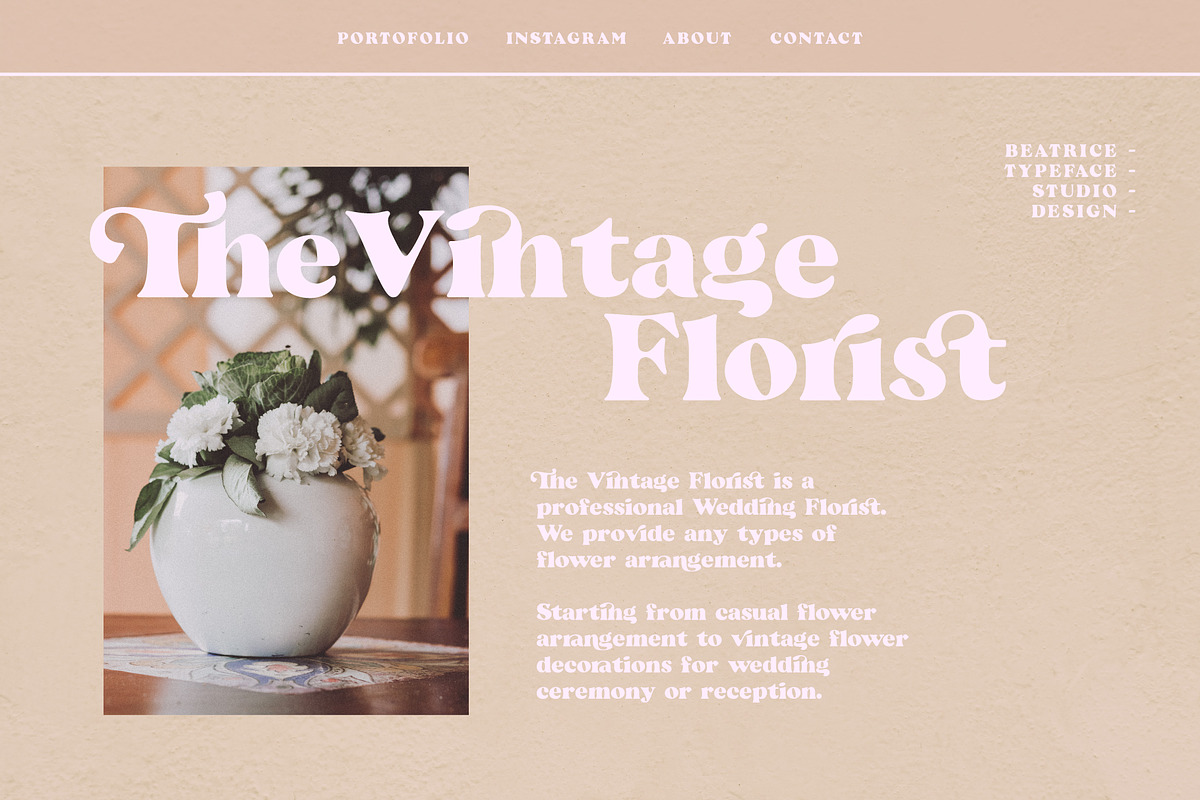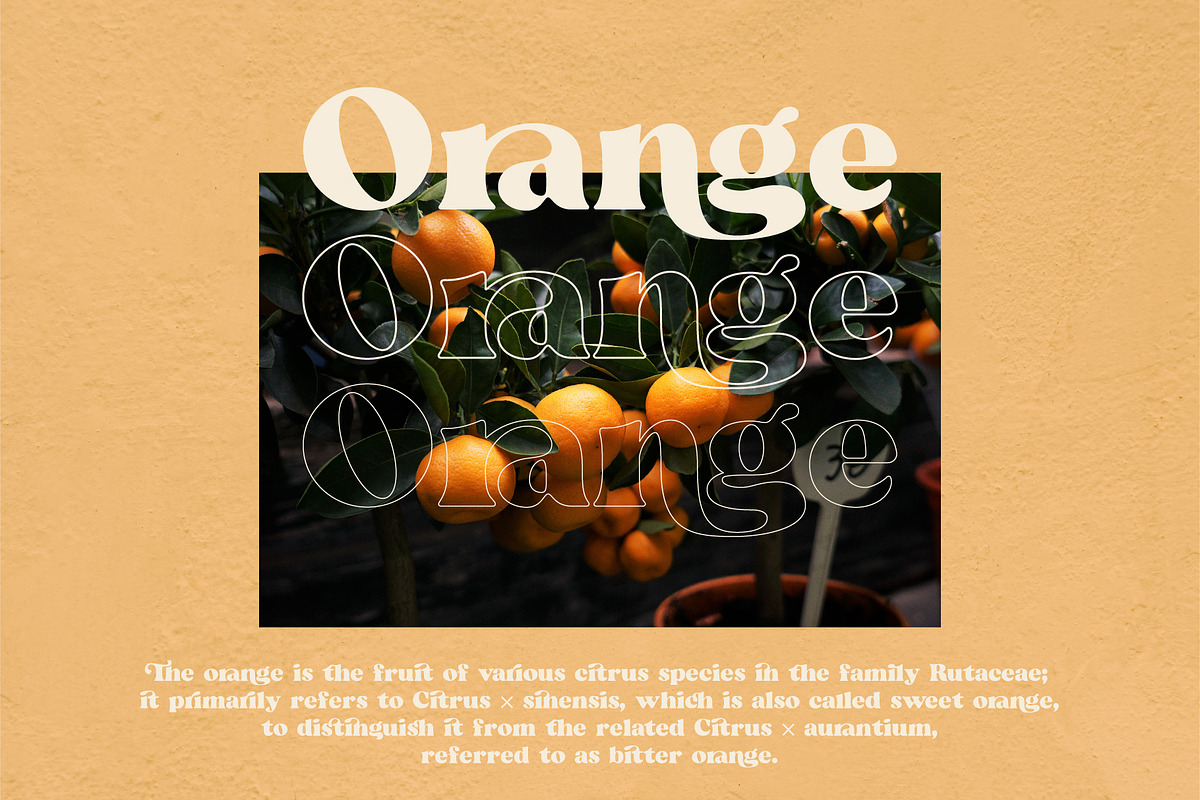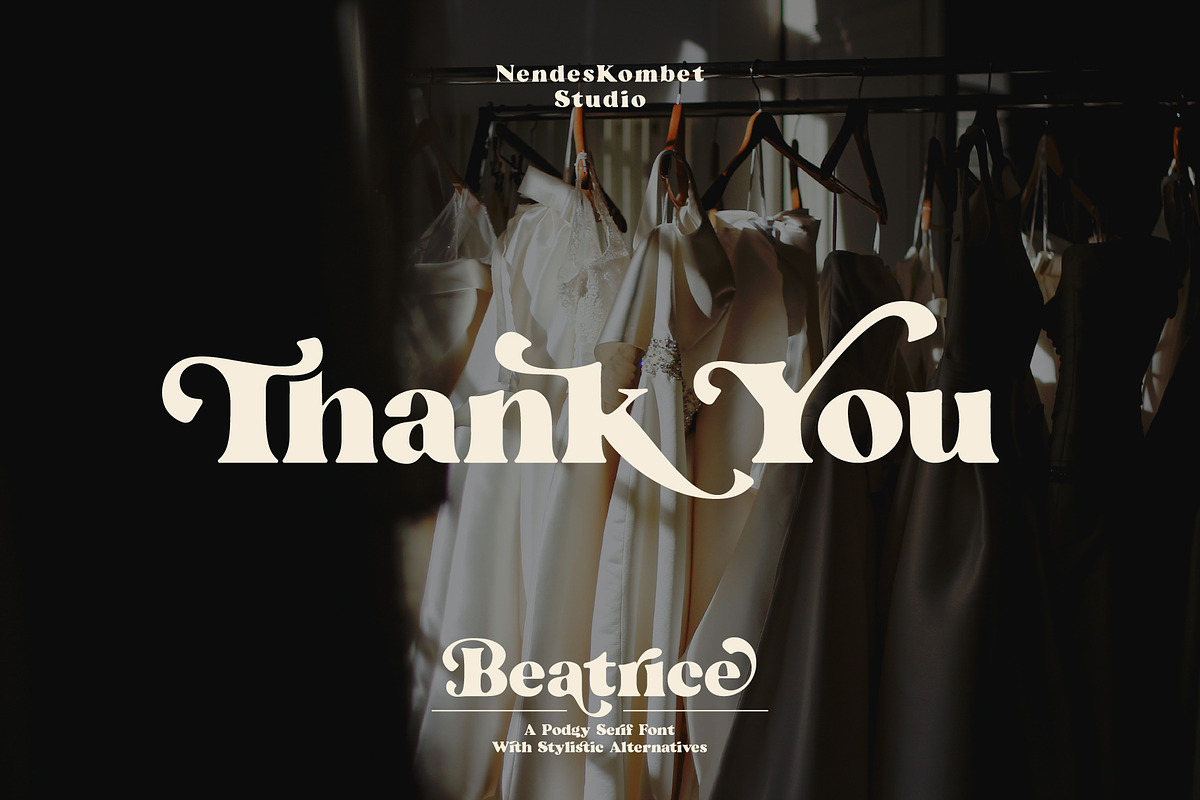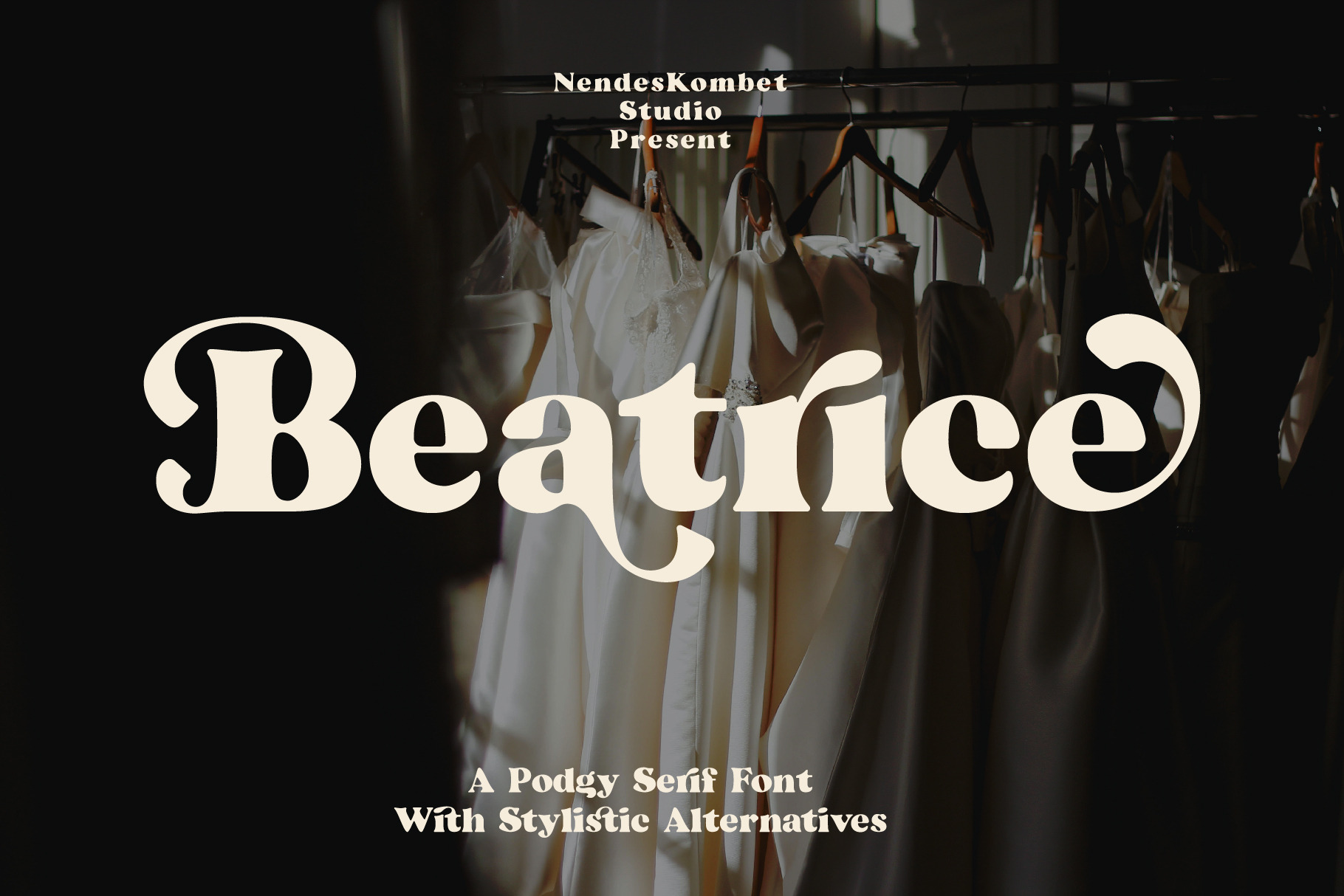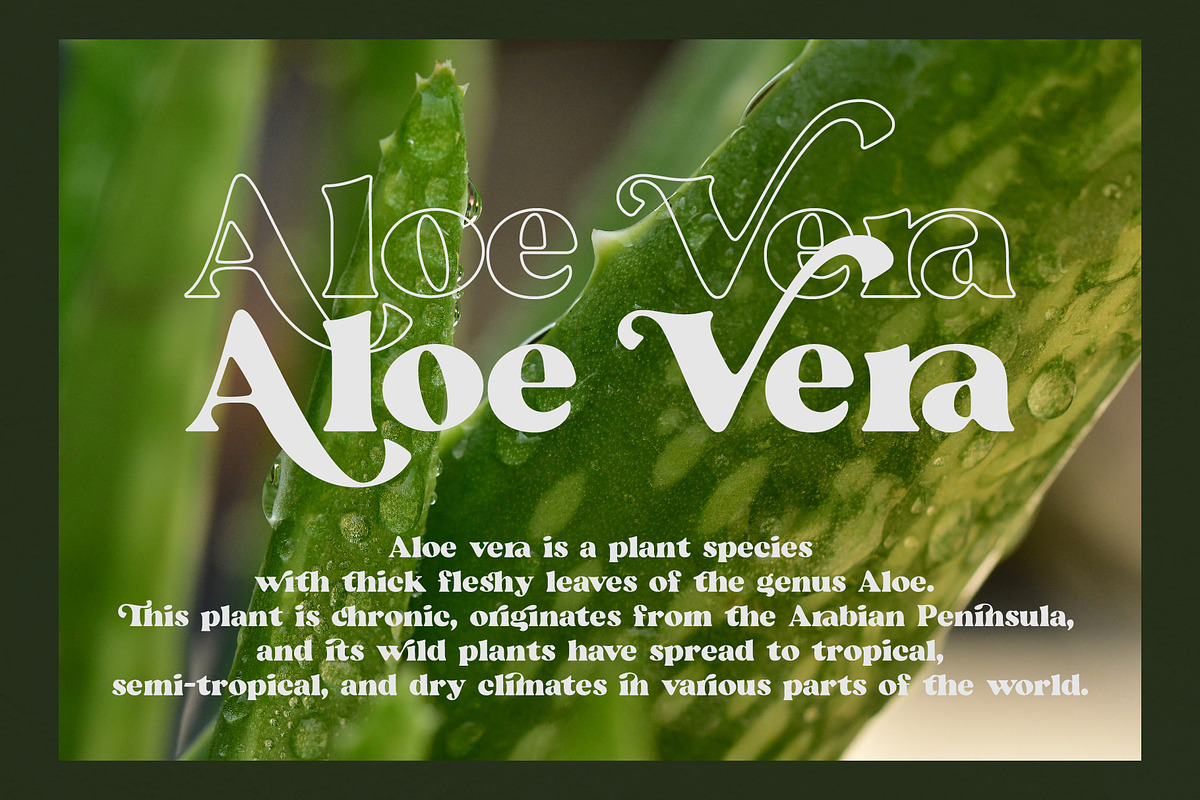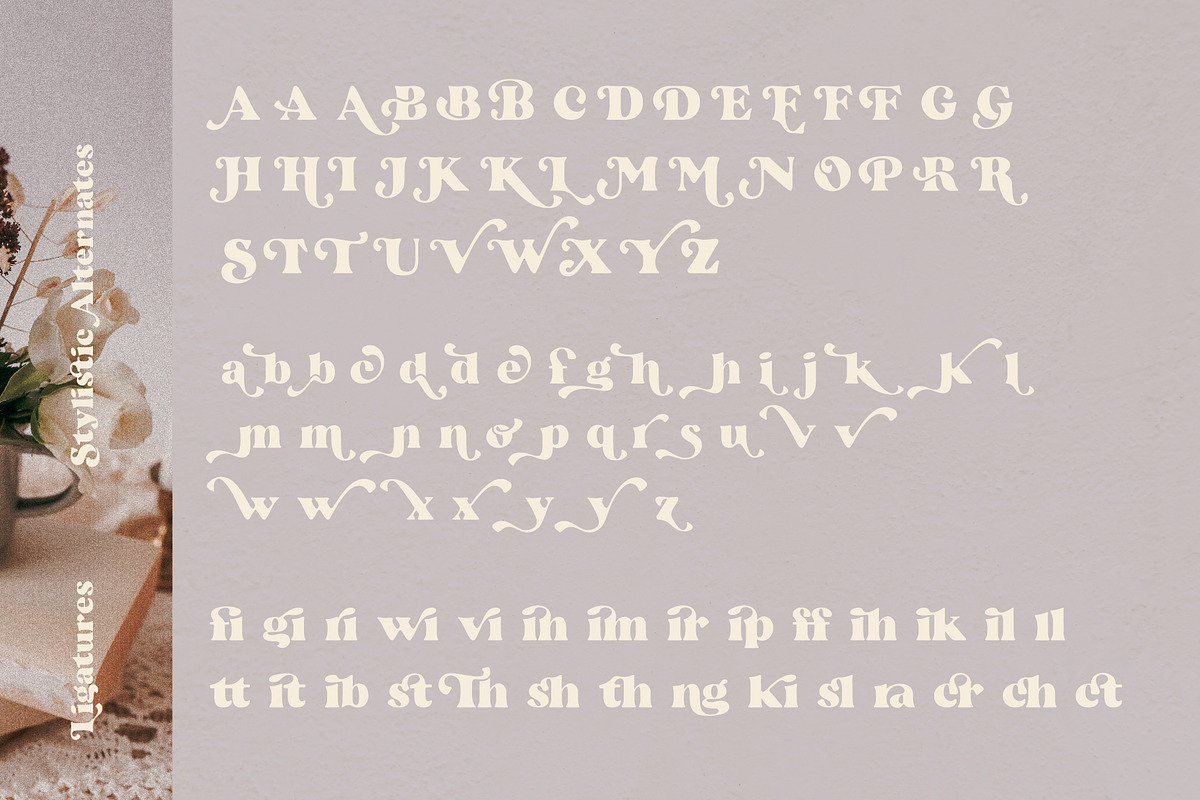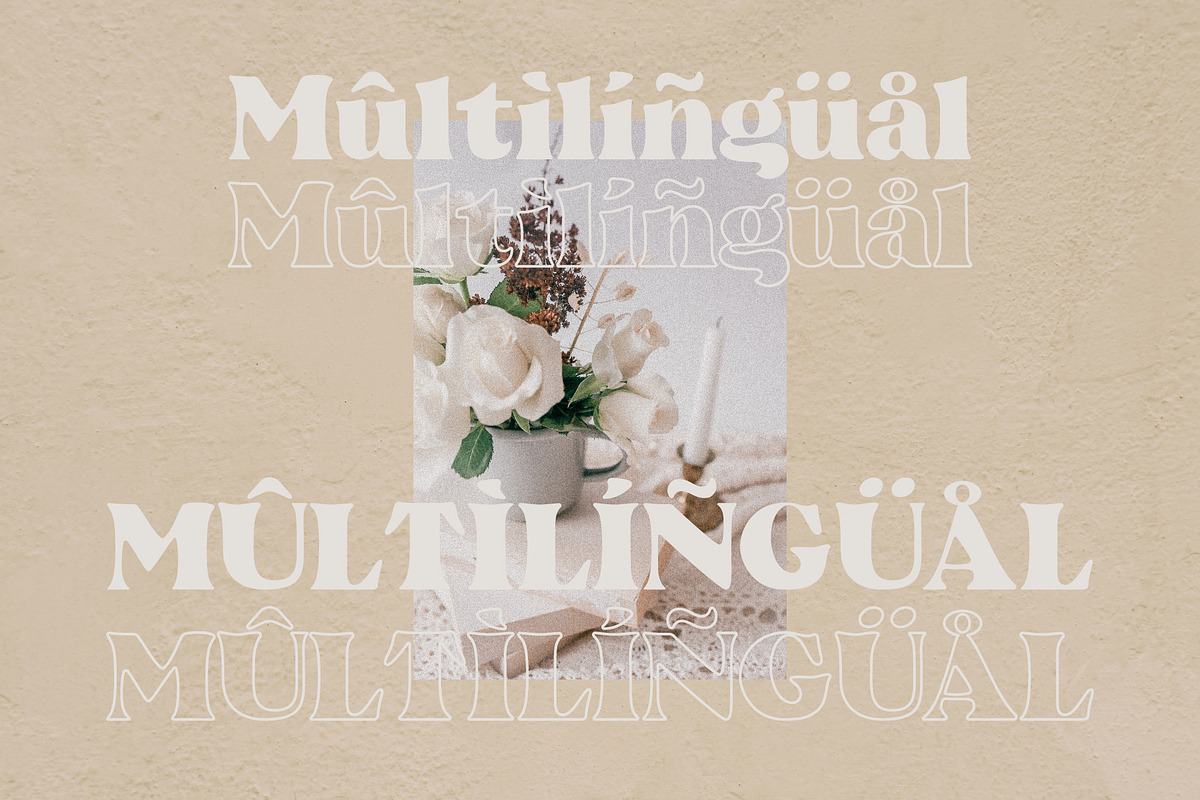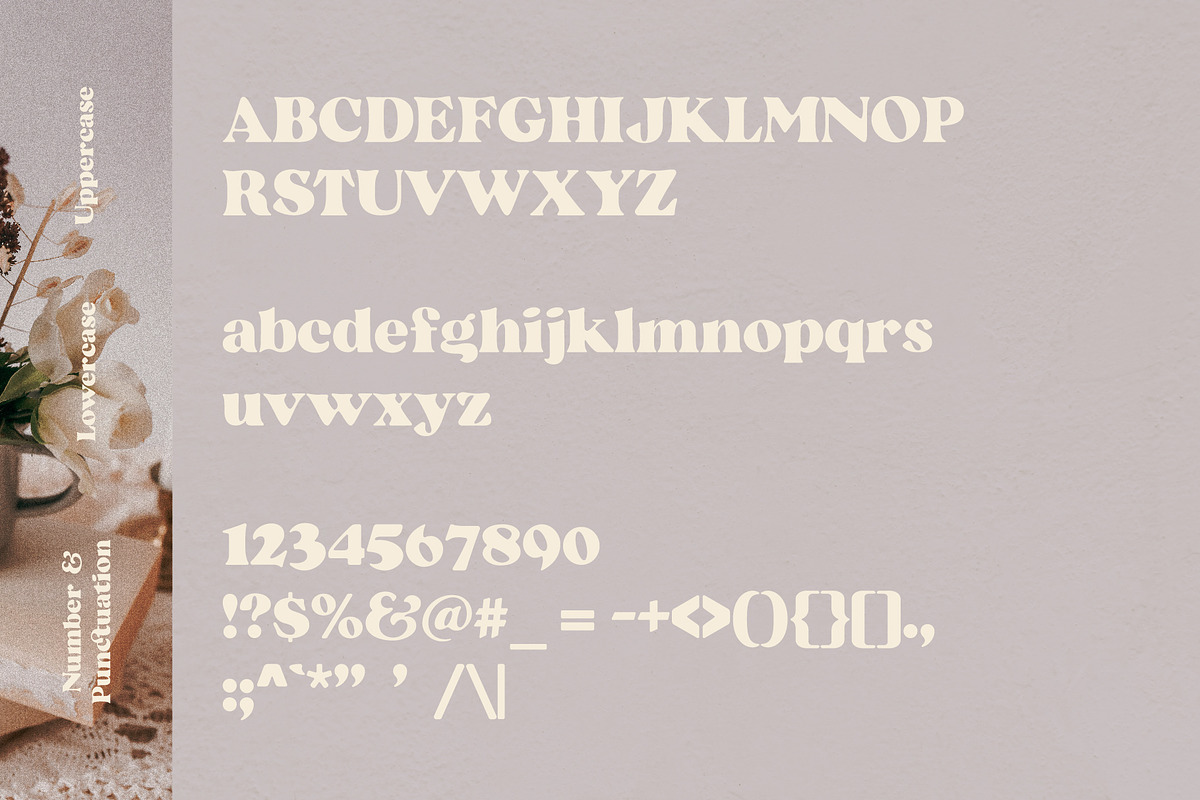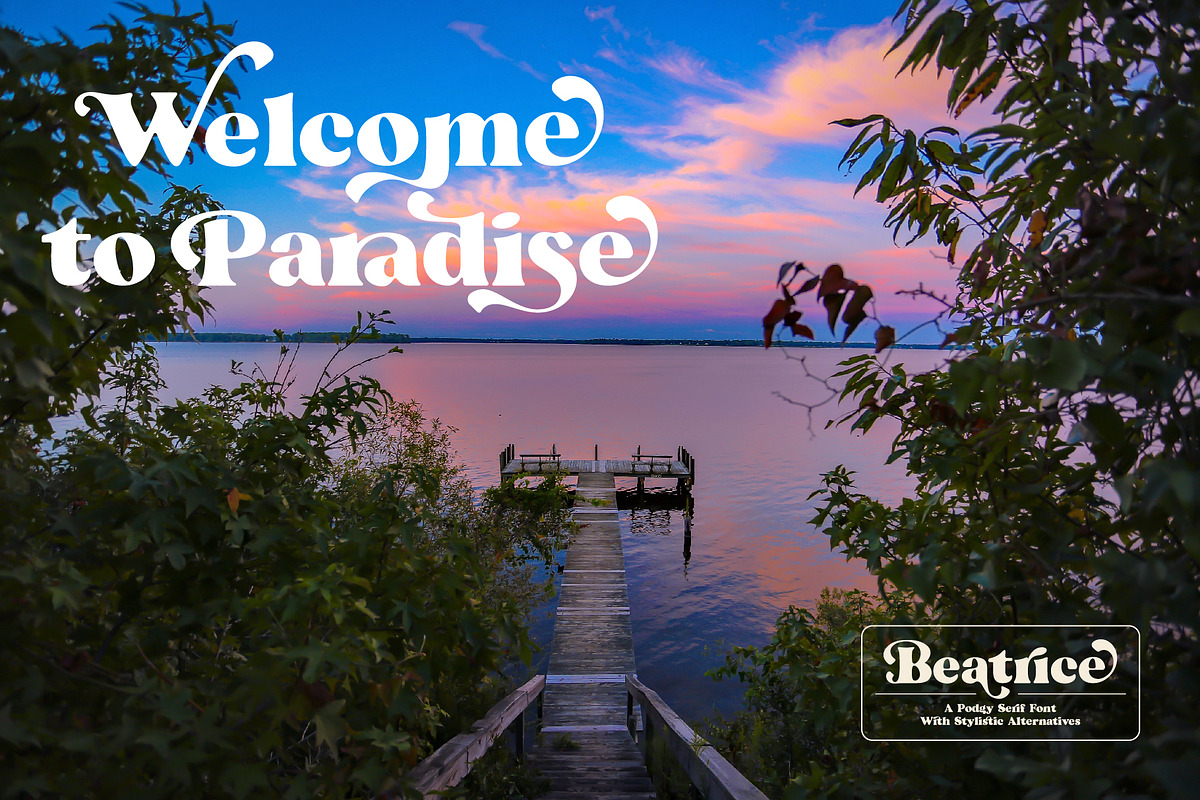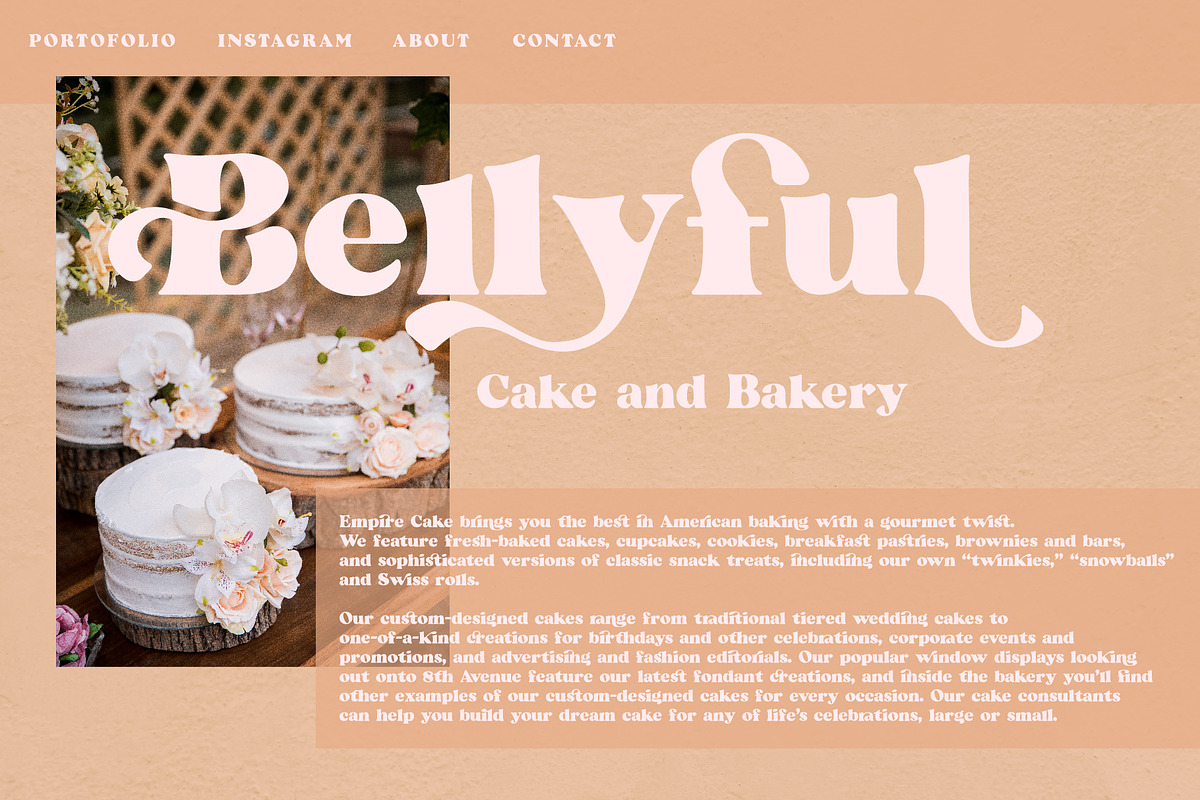
Beatrice - Retro Serif Font
I'm present to you, new retro serif called Beatrice!
Beatrice is an upper and lowercase serif font with nicely balanced curves. it is inspired by lettering from the good old past, but it still has a strong modern appearance. Its wide range of stylistic alternates allows versatile design options and works perfectly for headlines, logos, posters, packaging, T-shirts, postcards and much more.
- Letters, numbers, punctuation, multilingual support, alternate and ligature